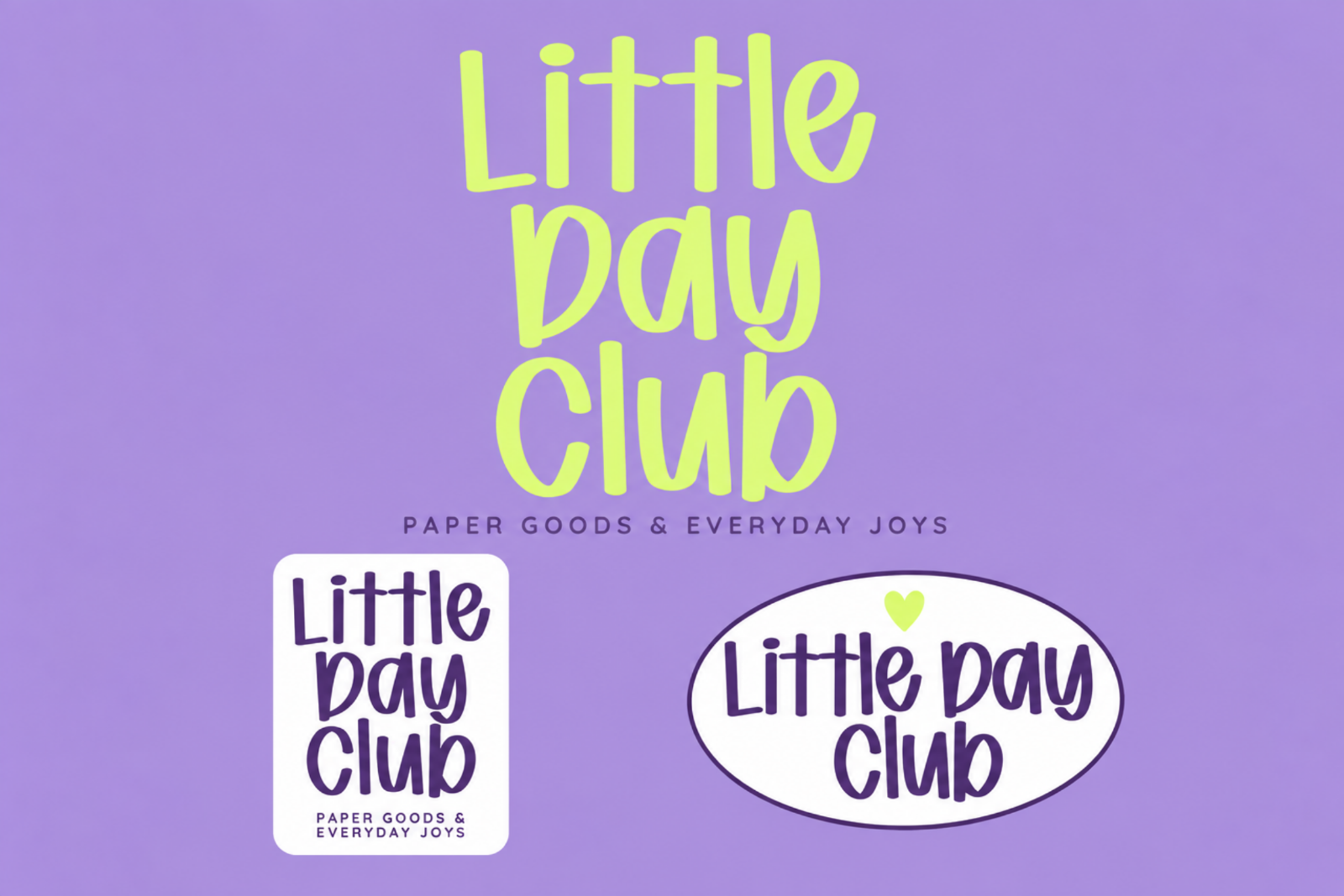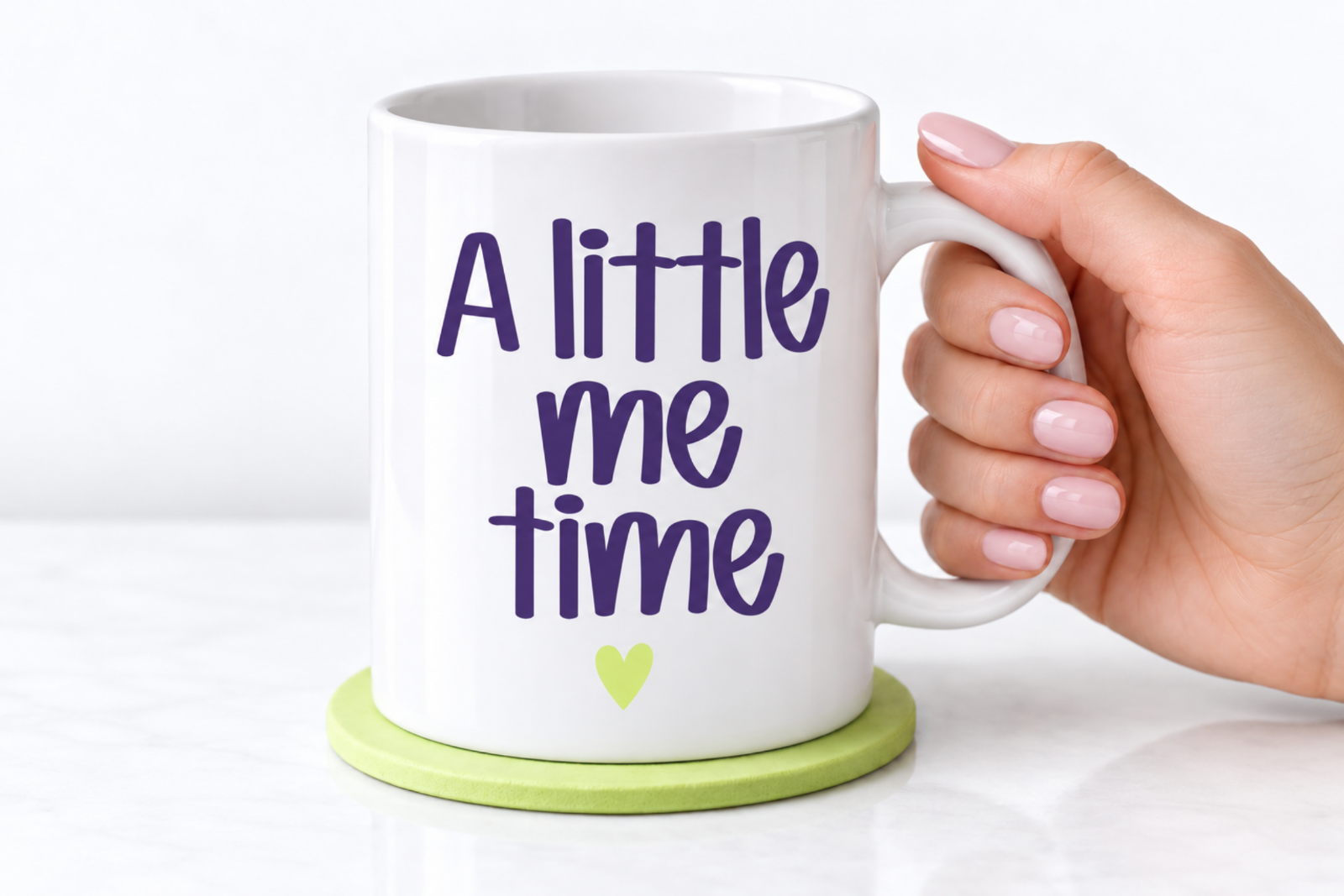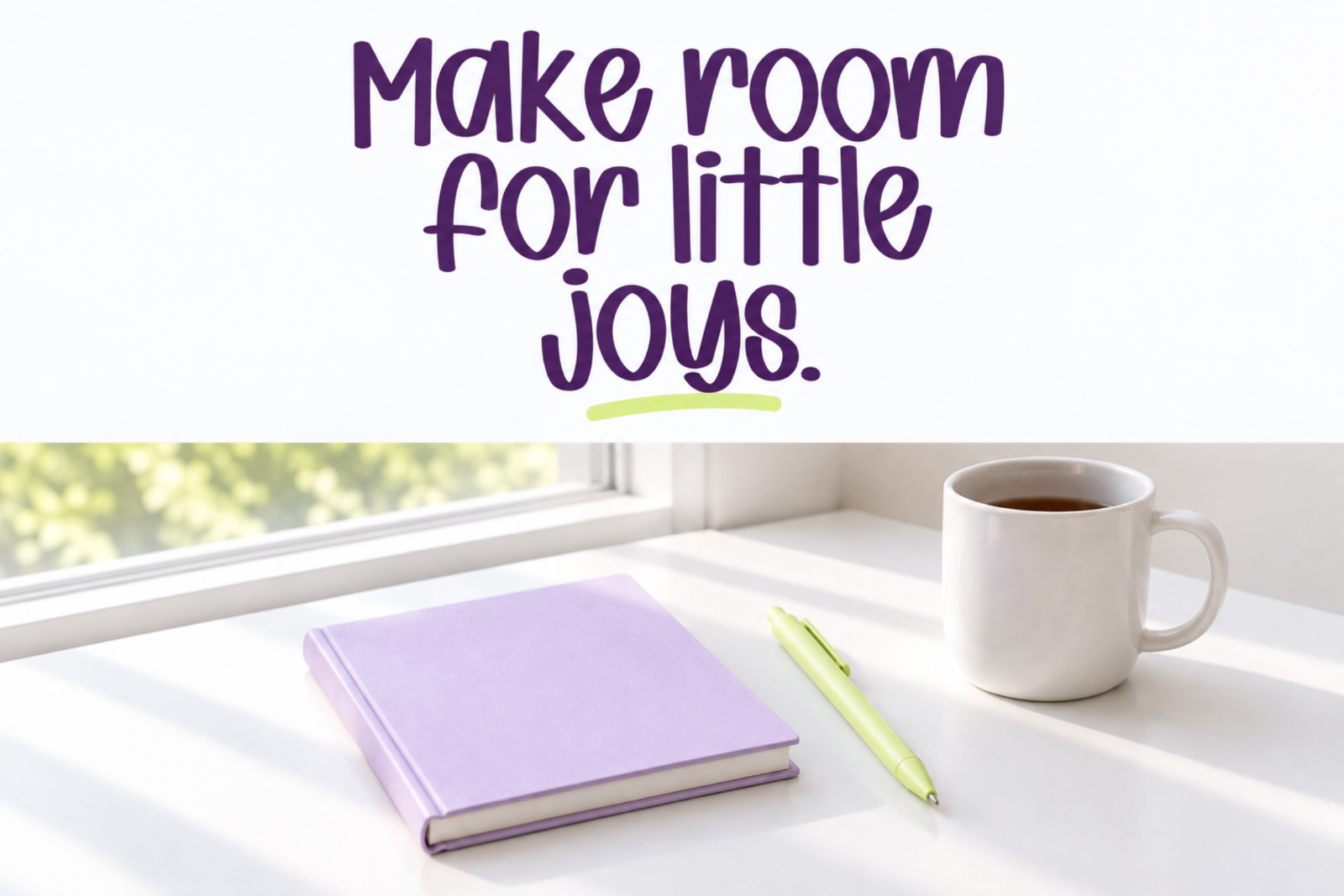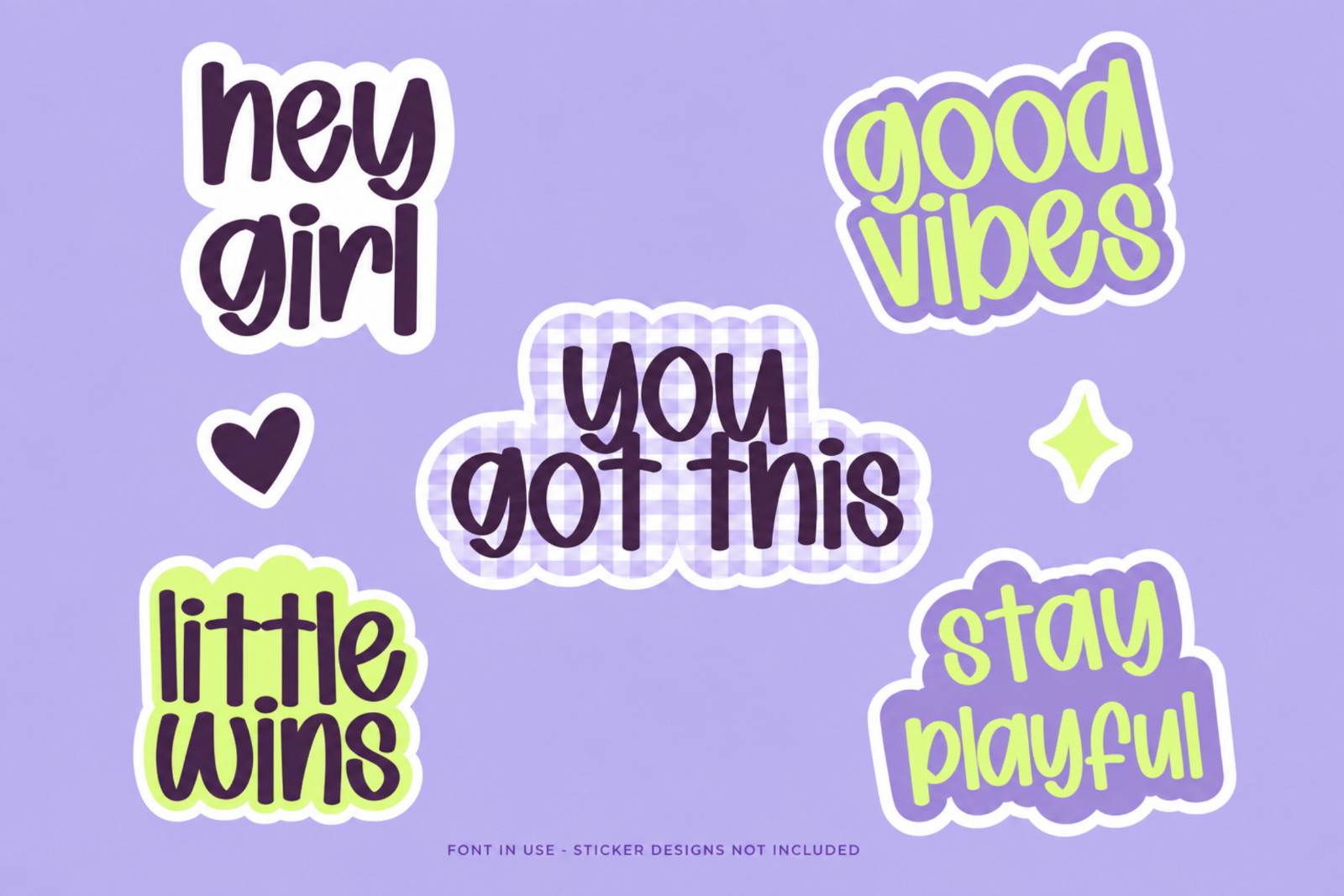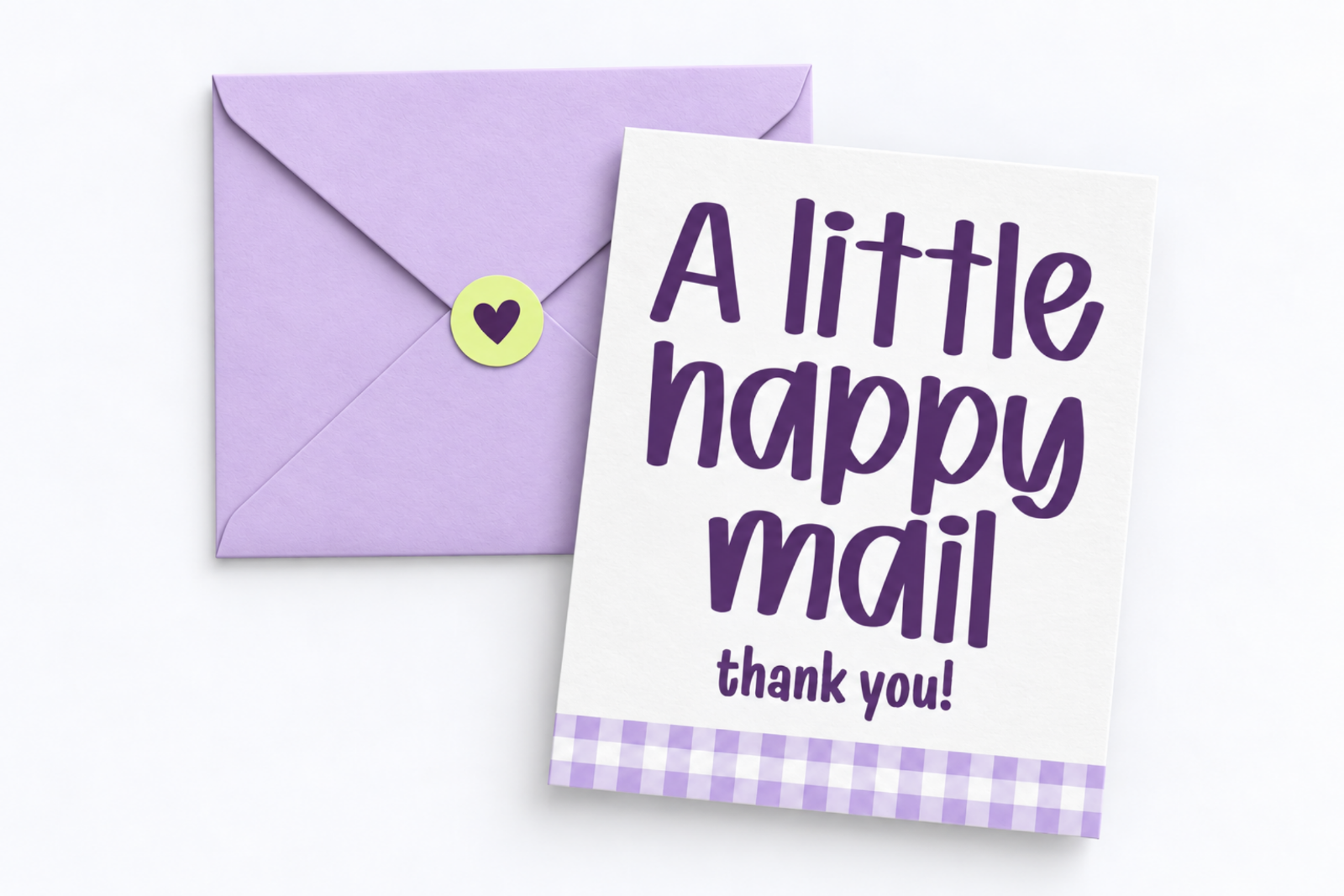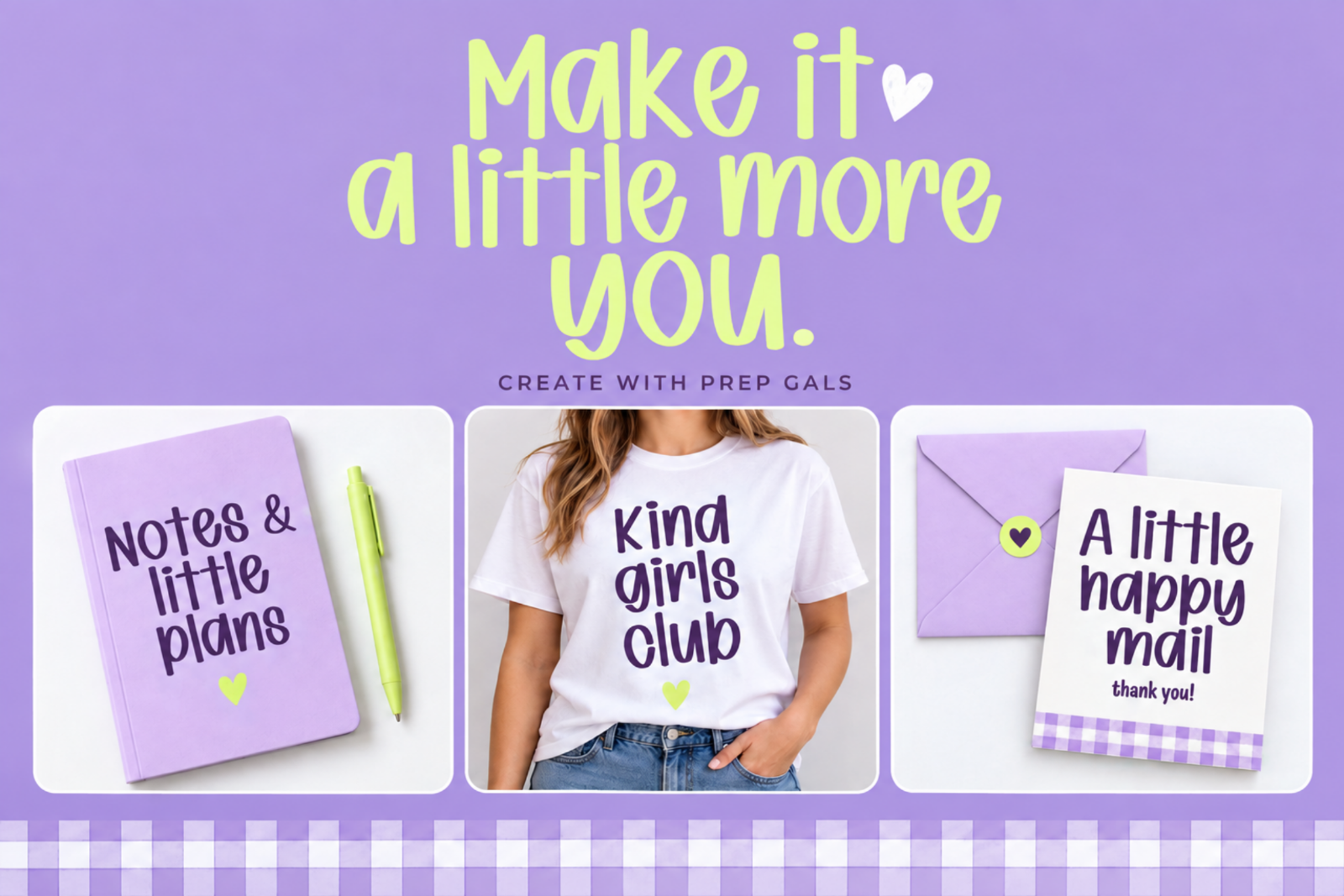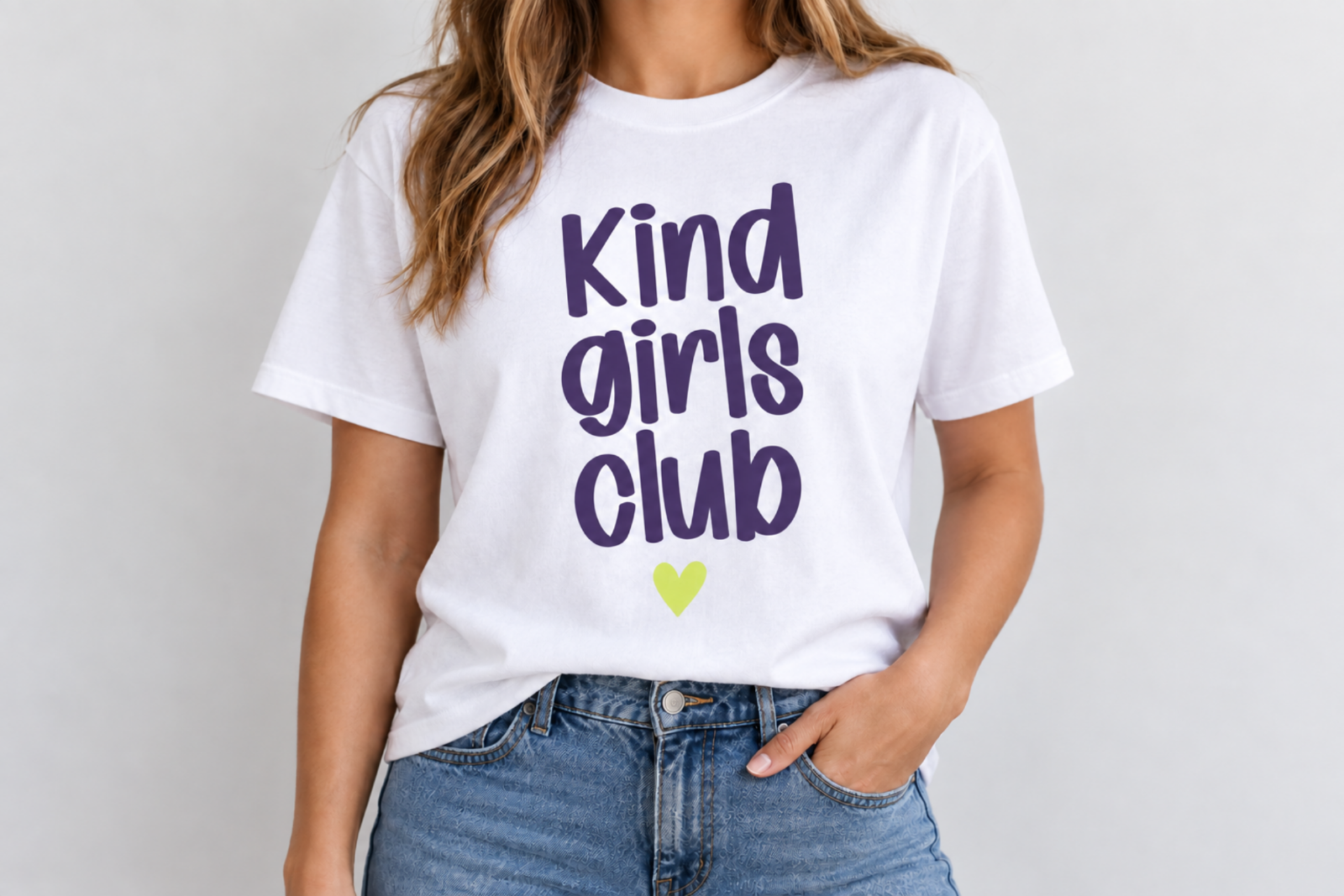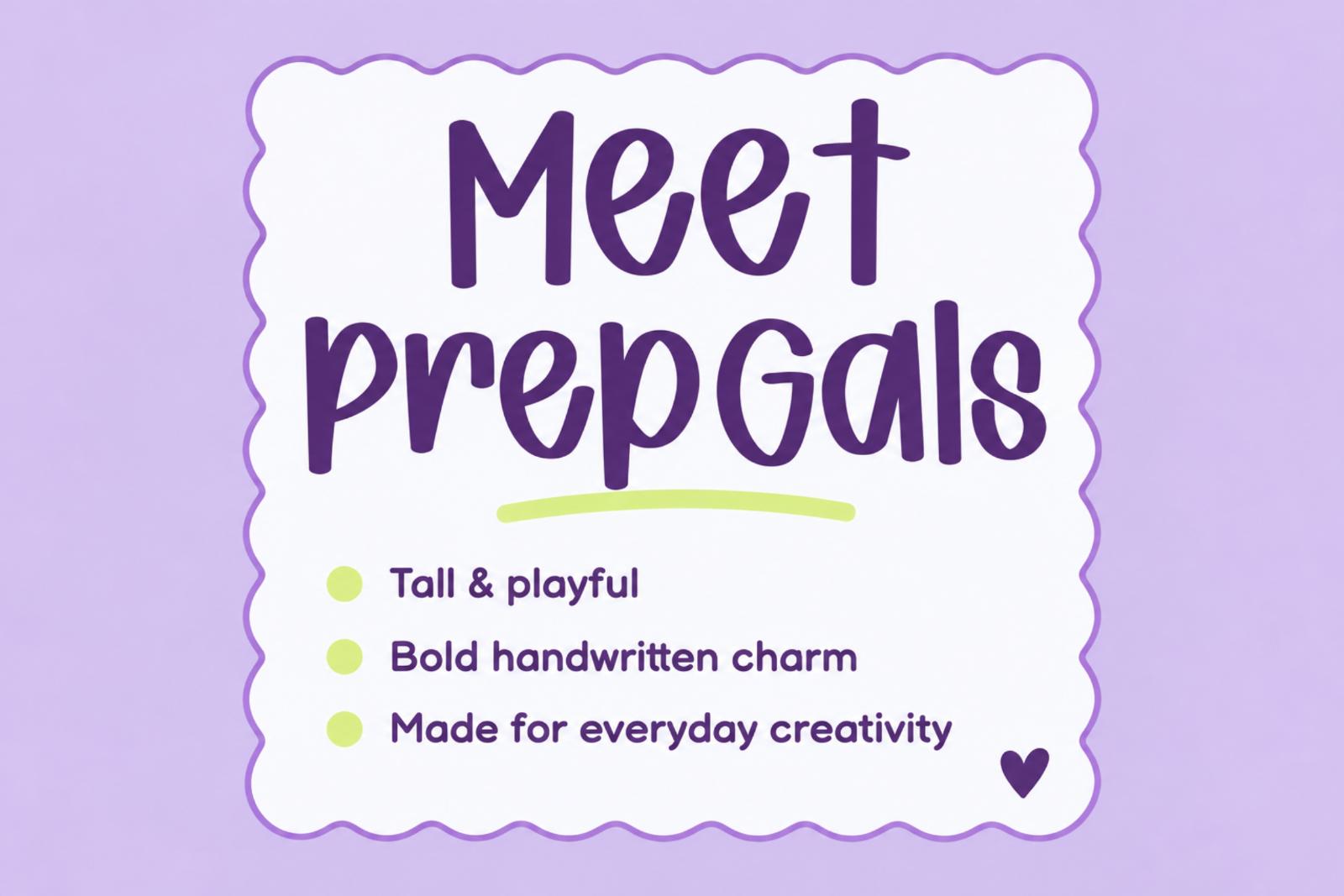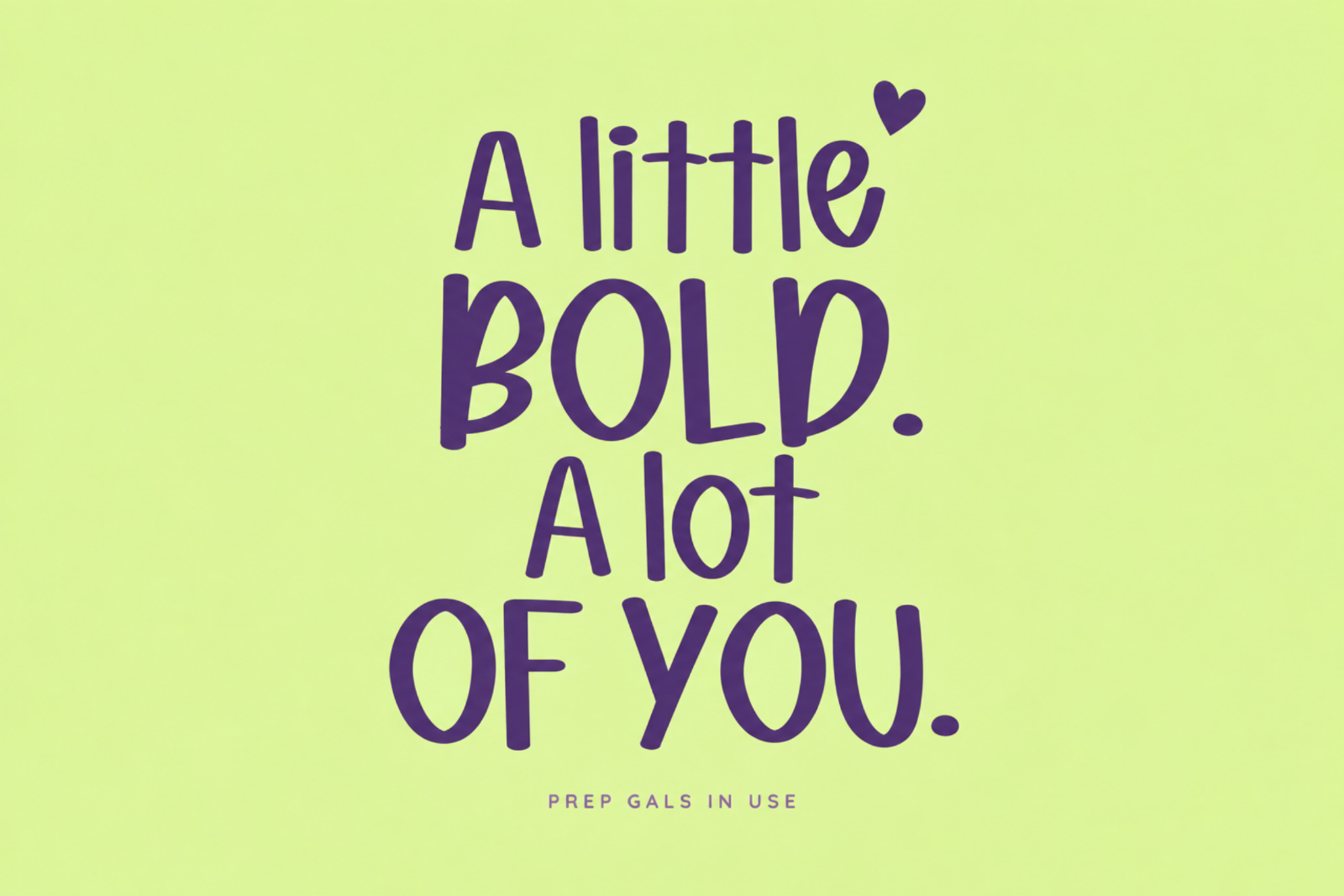
Prep Gals – Cute Bold Handwritten Preppy Font
Prep Gals is a cute, bold handwritten font filled with playful personality and modern preppy charm. Its tall, slightly irregular letterforms give every word a fun hand-drawn look while remaining clear, friendly, and easy to read.
Designed for statement lettering and cheerful everyday projects, Prep Gals works beautifully for Cricut crafts, T-shirt designs, tote bags, stickers, mugs, planner headings, classroom materials, social media graphics, logos, packaging, labels, invitations, and small-business branding.
Use it to create playful phrases, girls-club merchandise, positive quotes, colorful product designs, and eye-catching typography that feels personal and handmade.
• Cricut and cutting-machine projects
• T-shirts, sweatshirts and apparel
• Stickers, labels and badges
• Tote bags, mugs and merchandise
• Digital planners and journaling
• Logos and playful branding
• Packaging and product labels
• Social media posts and quotes
• Classroom and children’s projects
• Invitations, cards and printables
Prep Gals is ideal for designers, crafters, content creators and small-business owners looking for a bold handwritten font with a cute, confident and playful style.
Create something cheerful, personal and a little more you with Prep Gals.